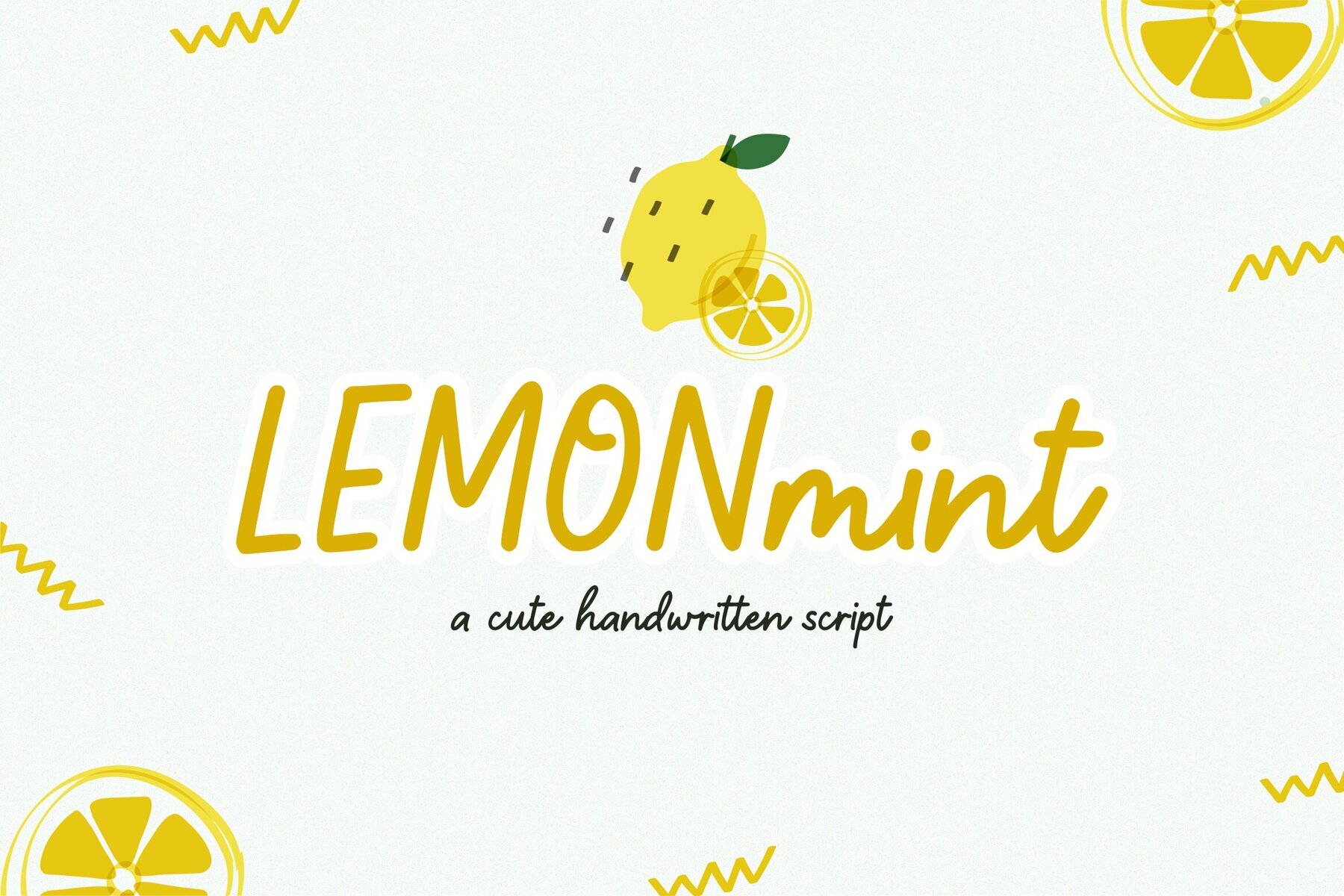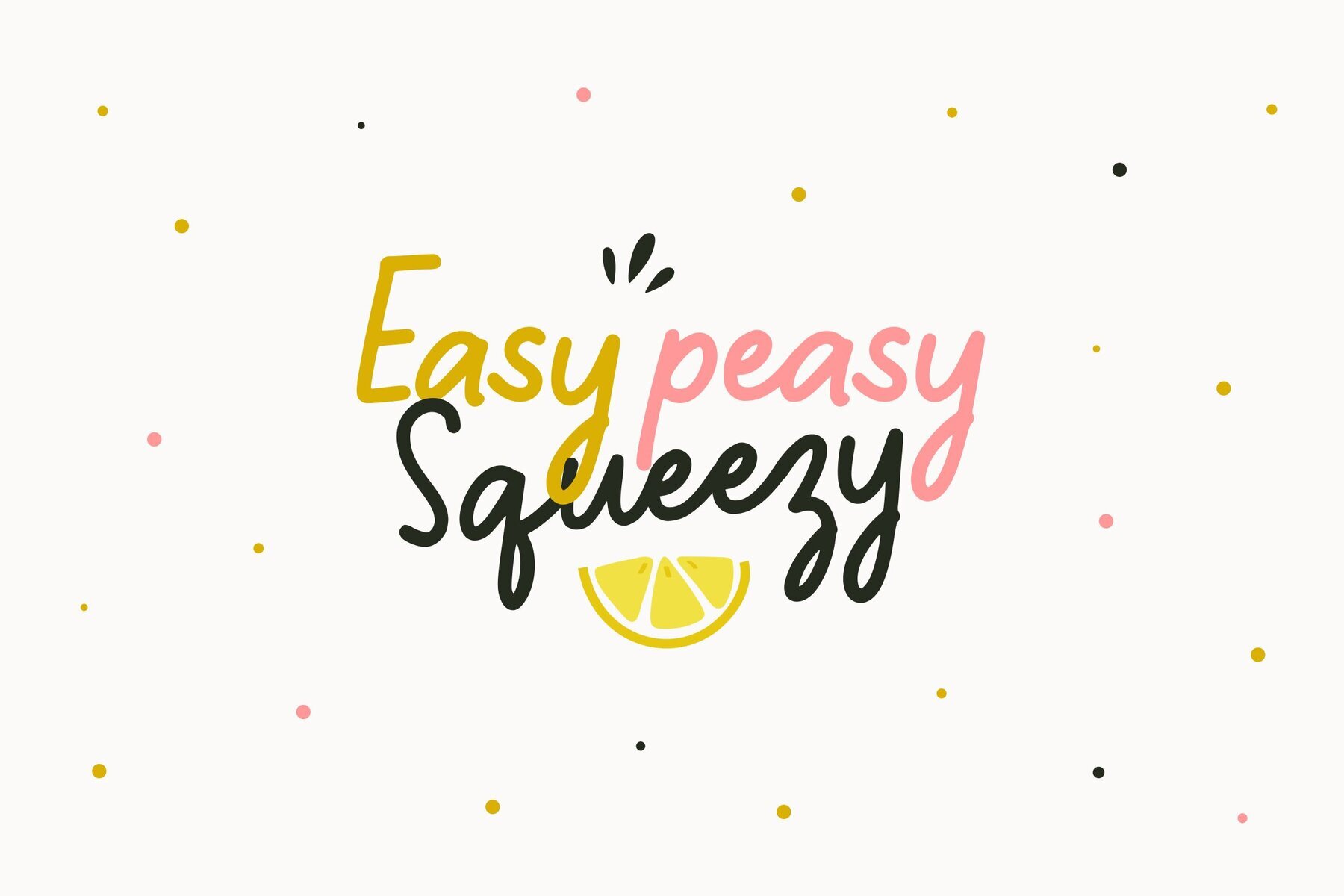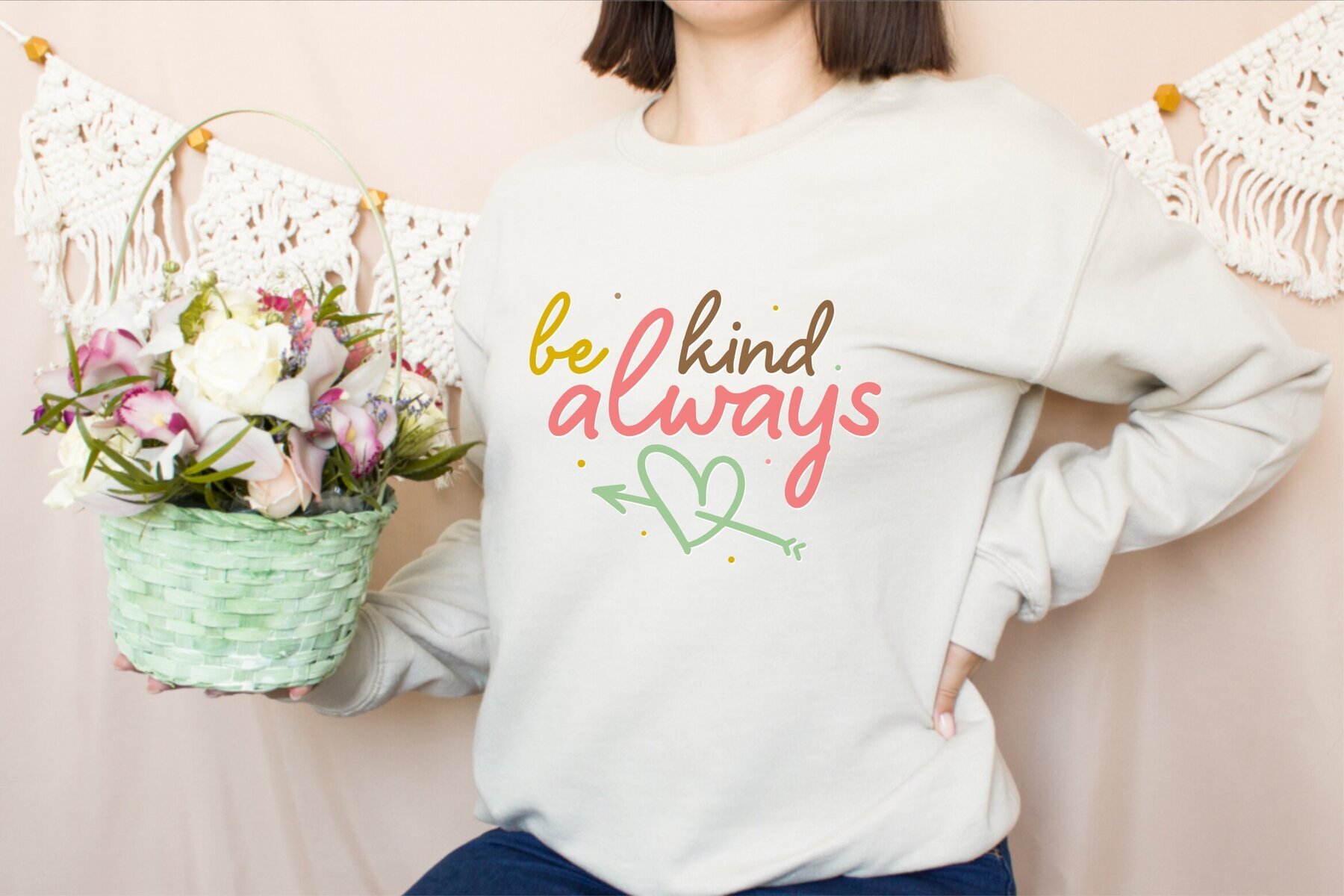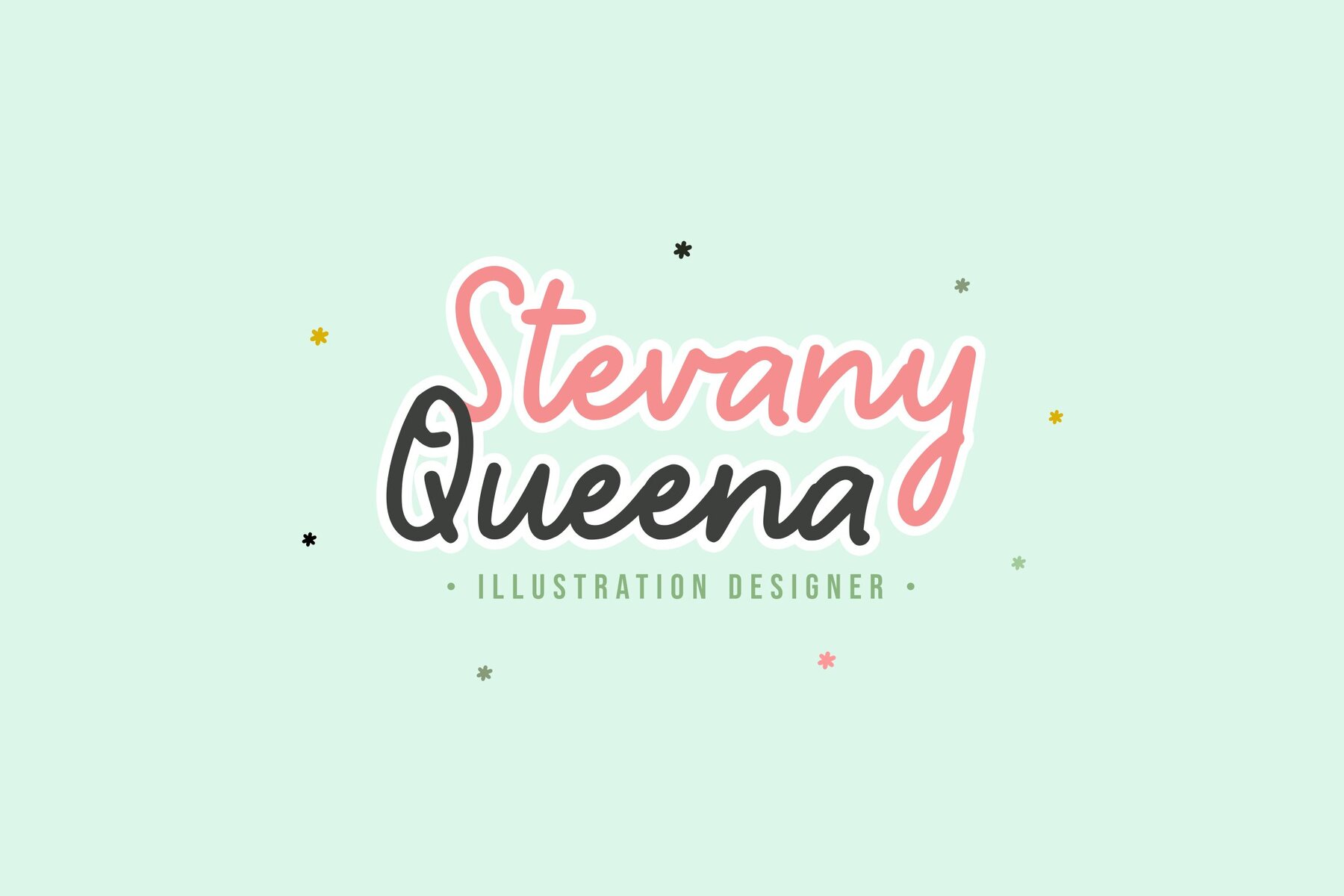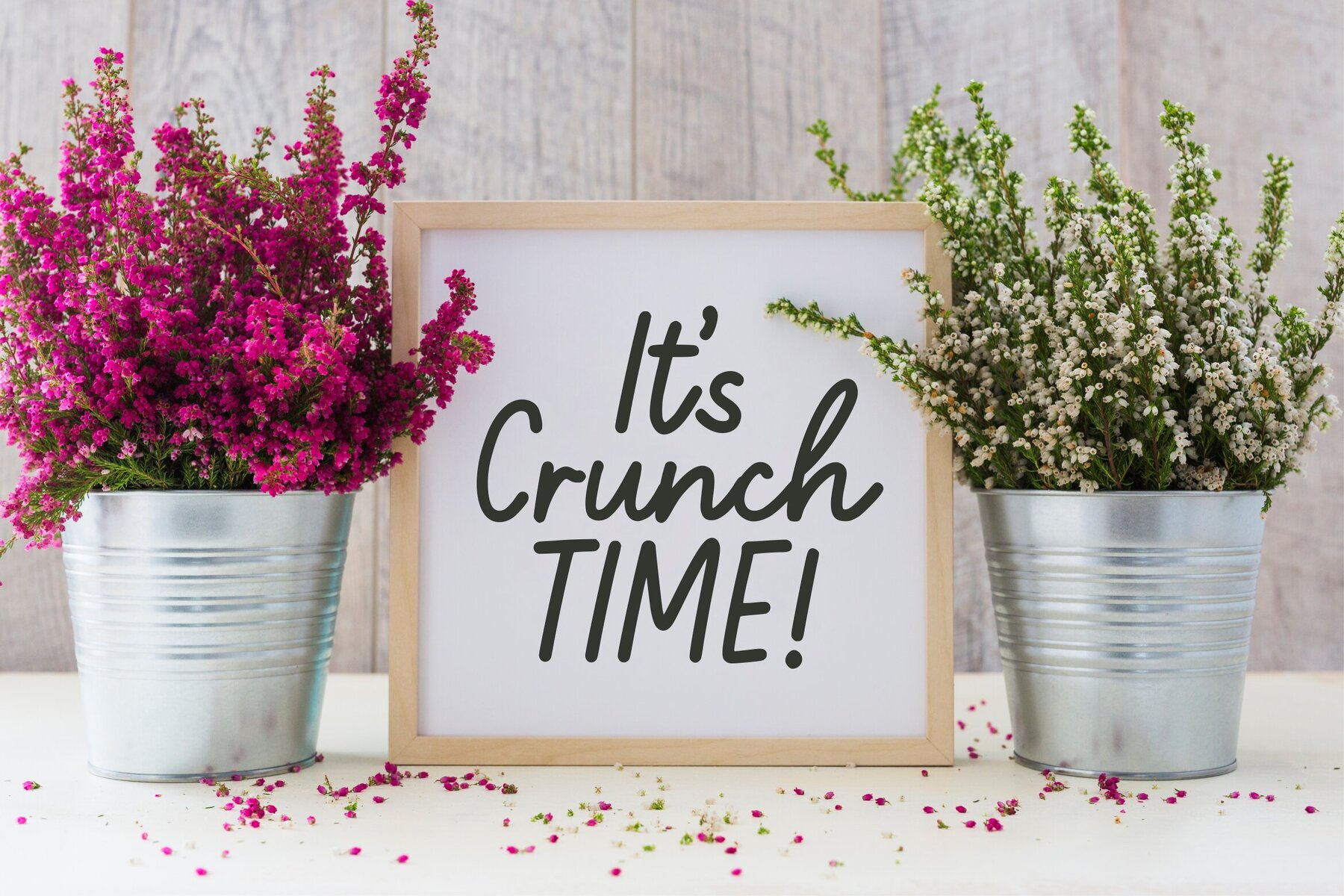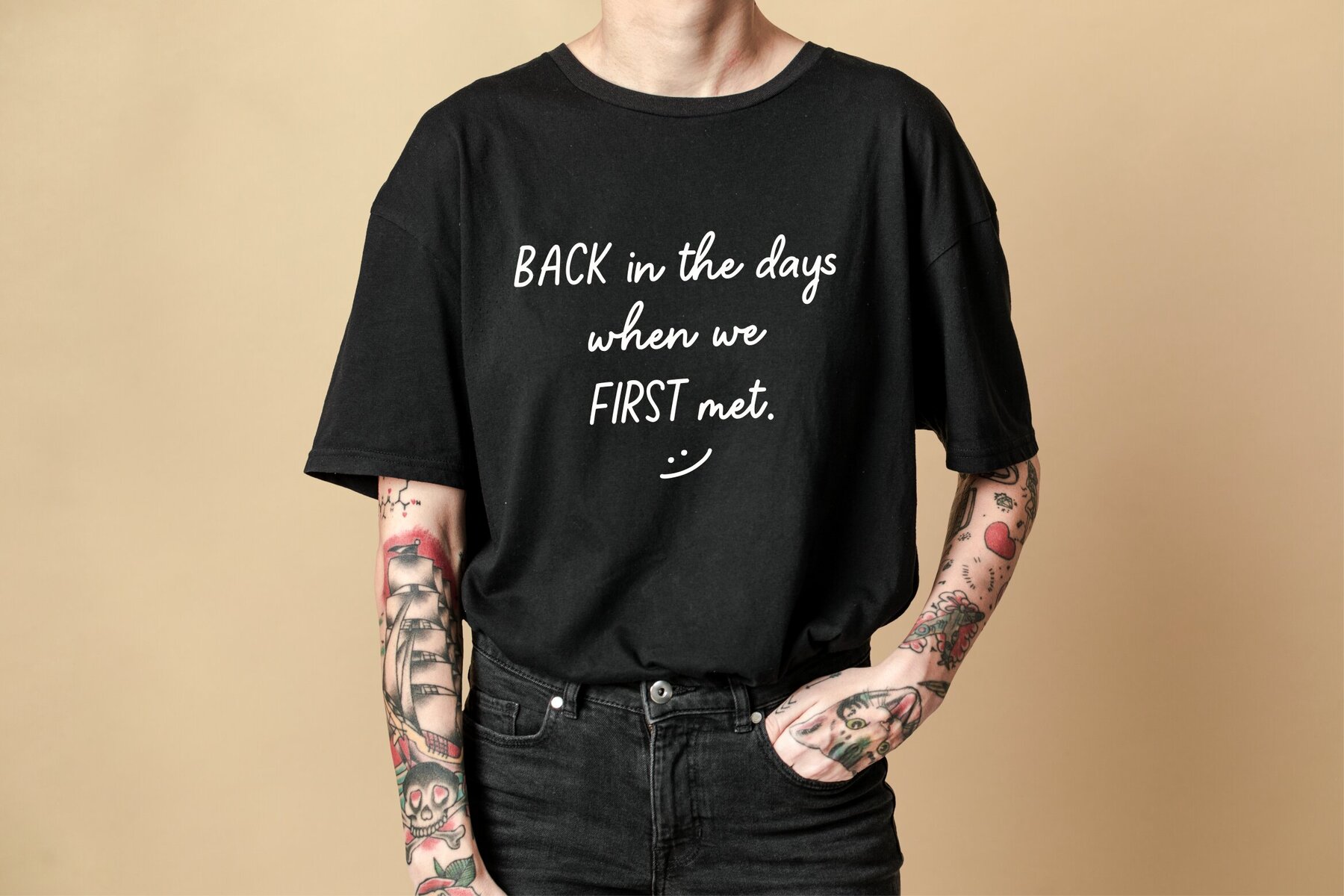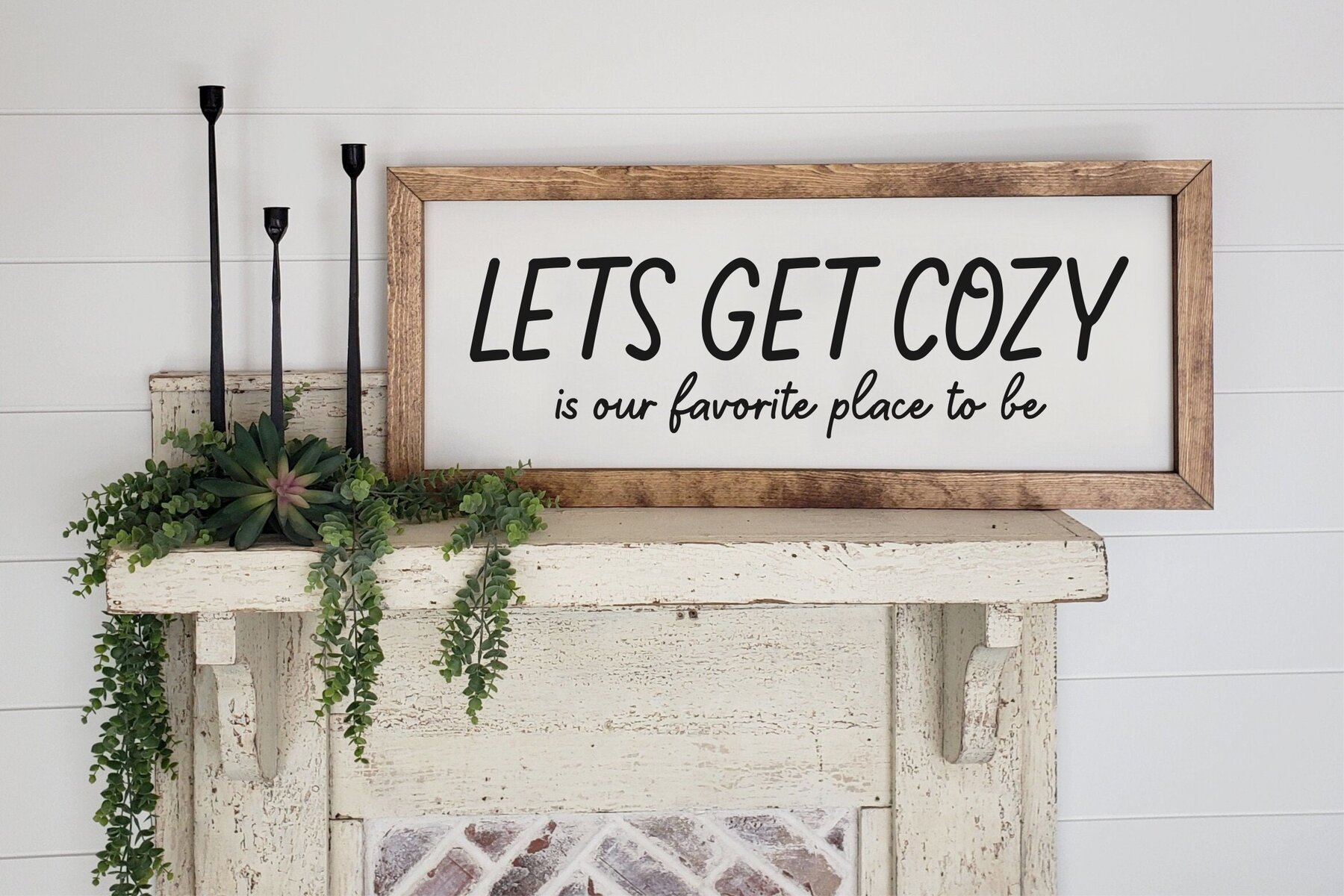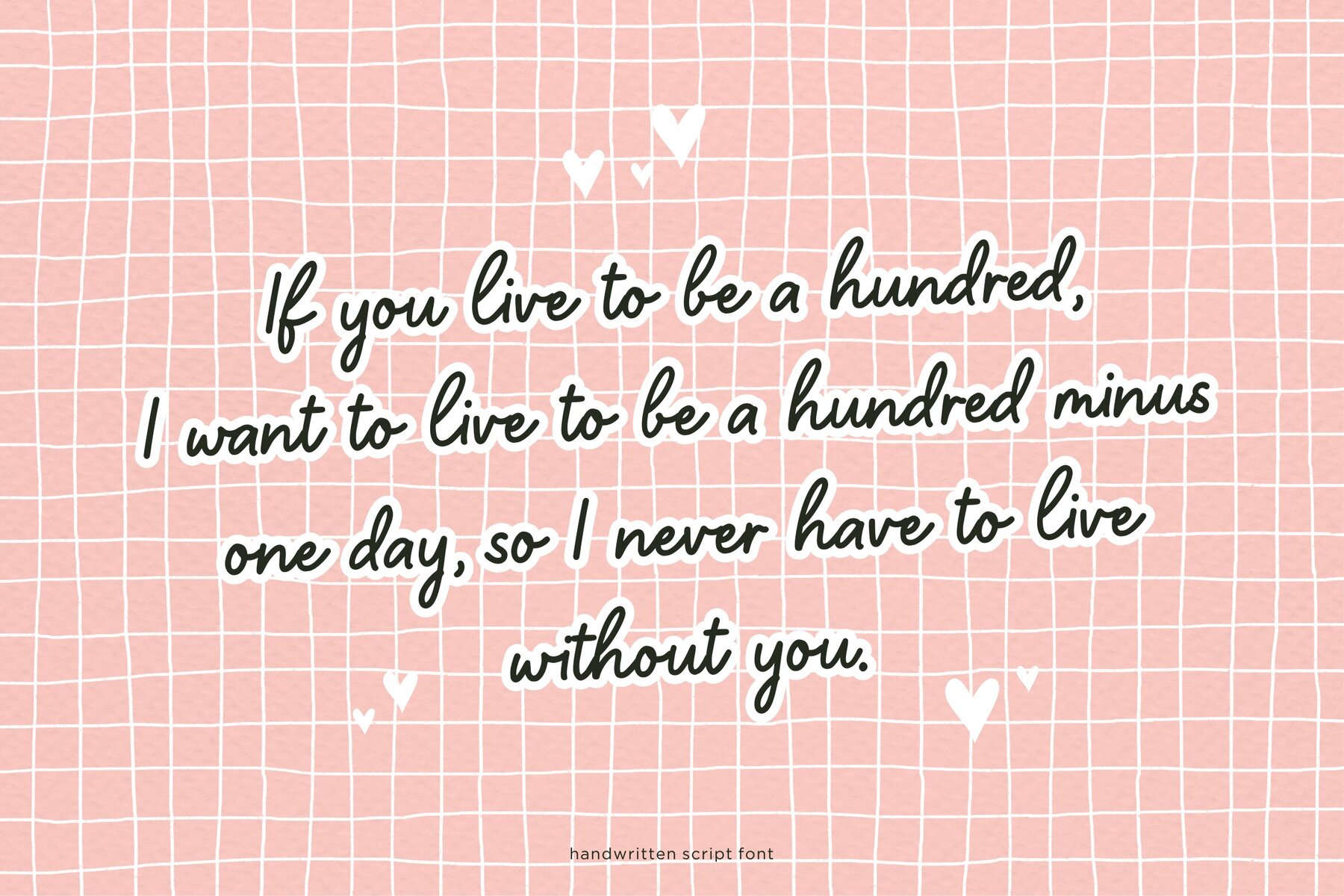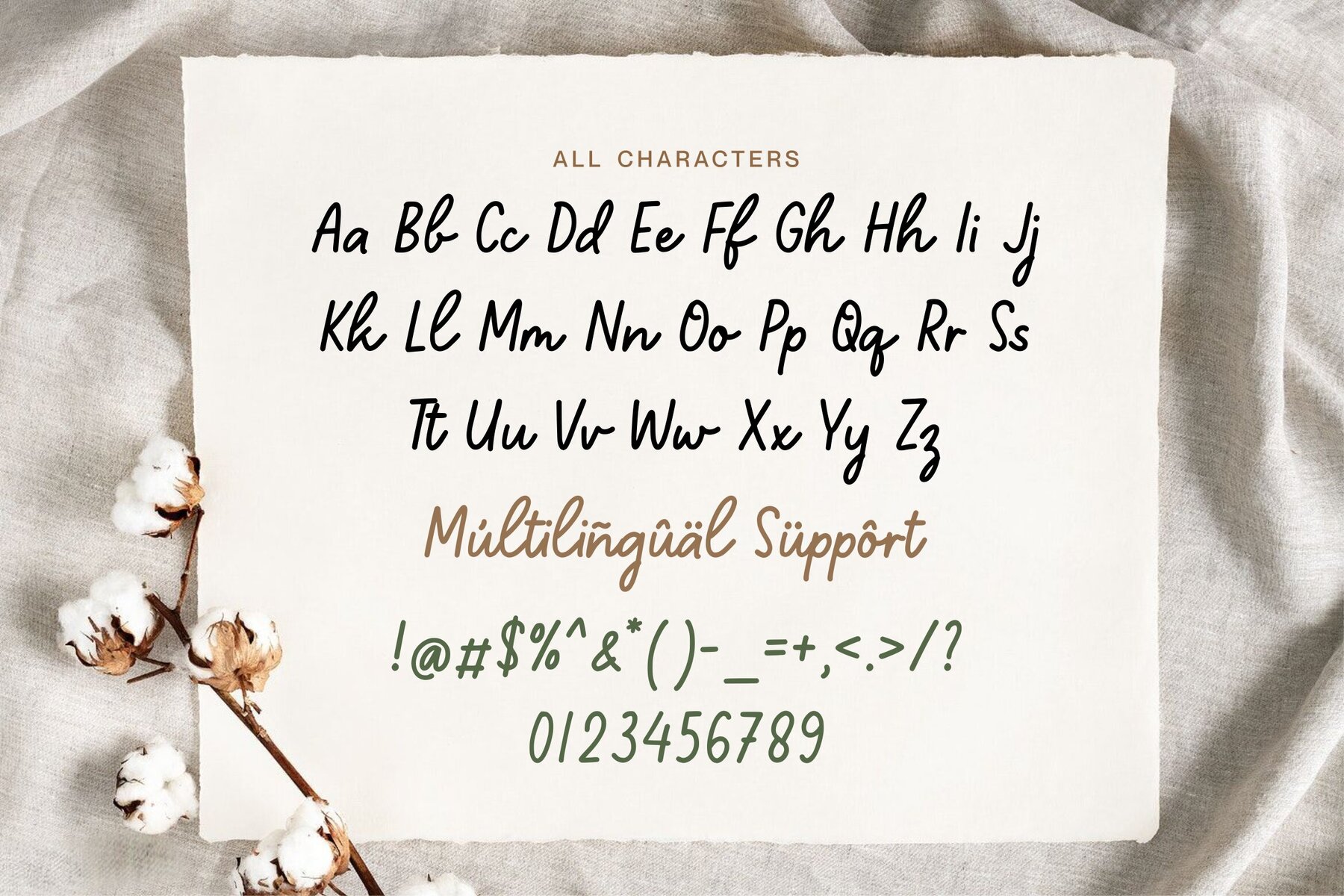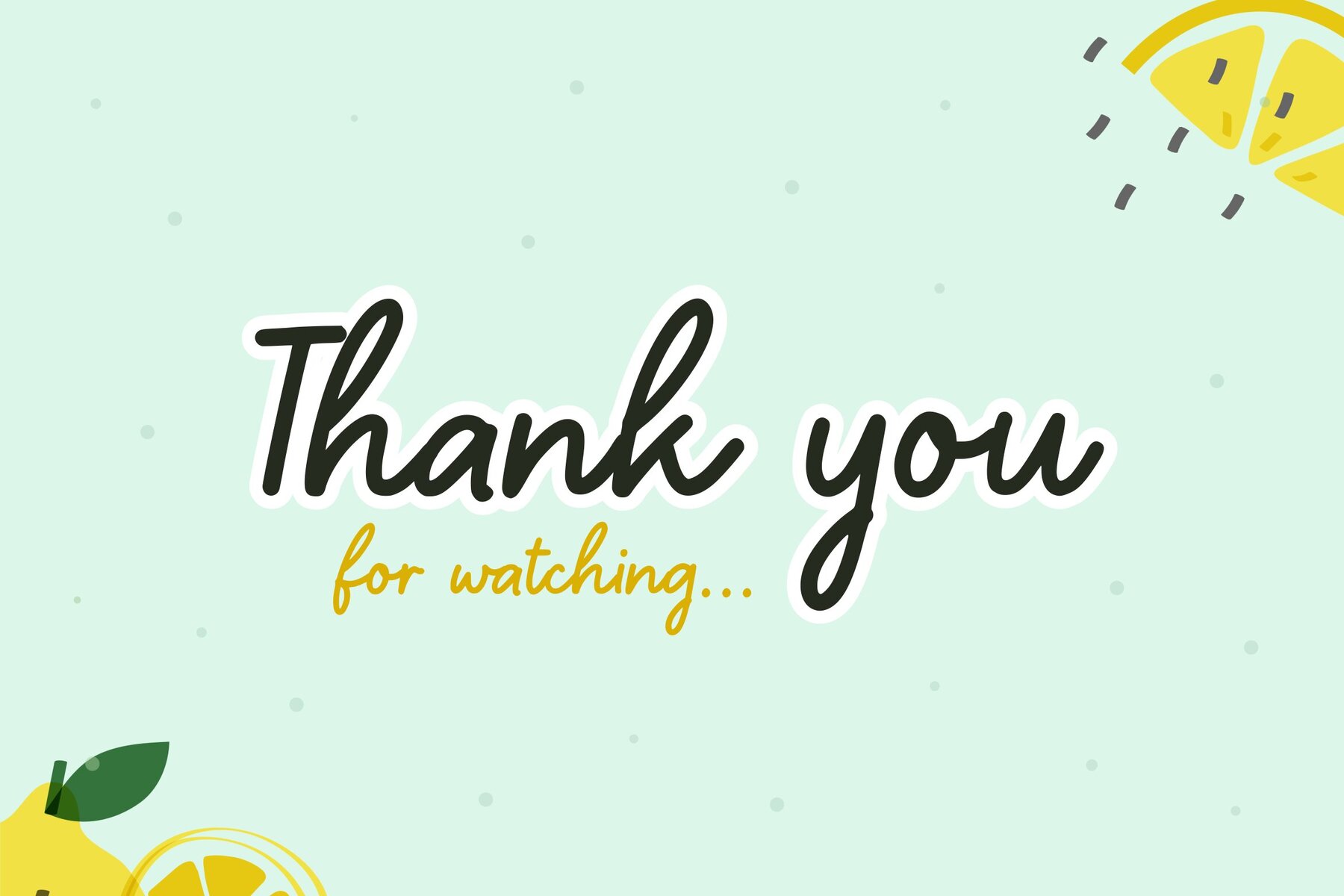
Lemonmint Font
Lemonmint Regular
Lemonmint offers a refreshing sans serif style that embodies simplicity and elegance. Ideal for myriad design projects, this font shines in product packaging, branding endeavors, and editorial layouts. Its clean lines and modern aesthetic provide designers with the flexibility to adapt their creativity across various mediums.Lemonmint: A Fresh Sans Serif for Versatile Applications